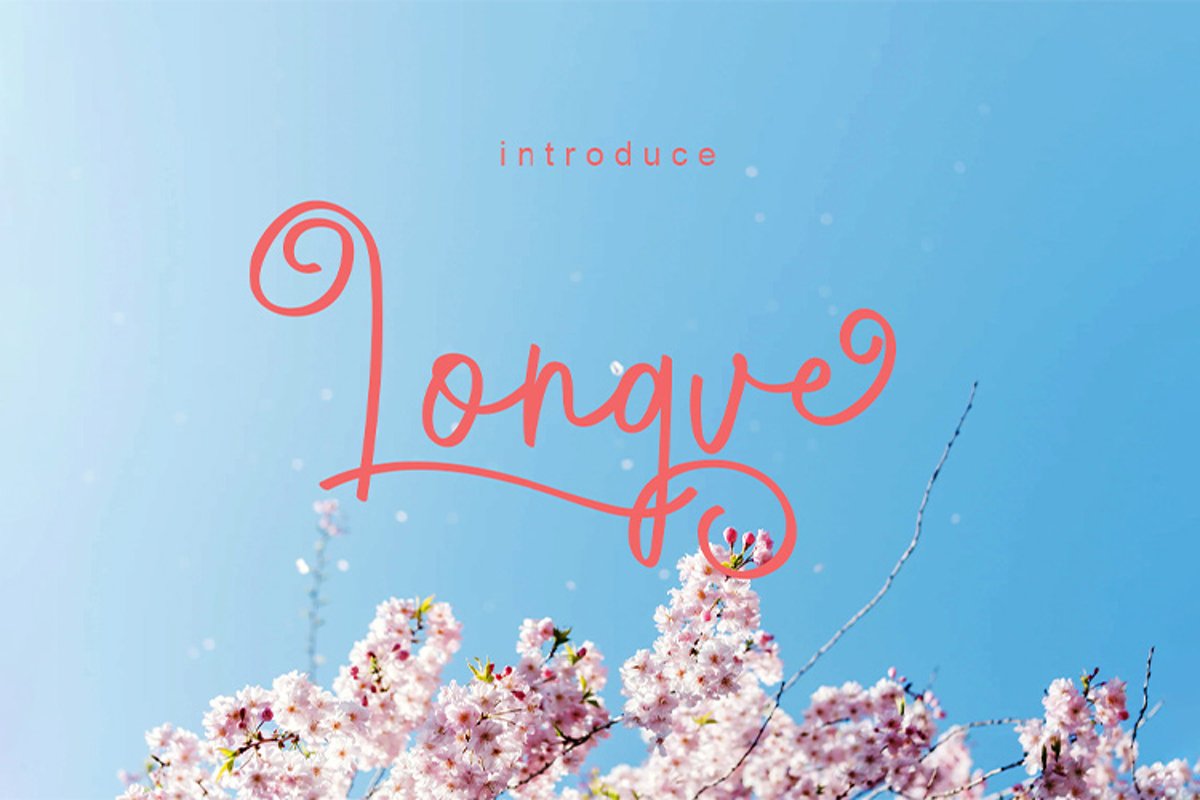
Longve || Elegant Handwriting Font
Longve
Longve is an Elegant Handwriting Font. Type or take their inspiration from the world of calligraphy. Longve is suitable for any project and product that you are working on, it can be in the form of cosmetics, t-shirts, photography, posters, websites, etc. This is a beautiful font, complete with alternative set choices, three sets of stylistic sets for uppercase letters and seven stylistic sets of lowercase letters.